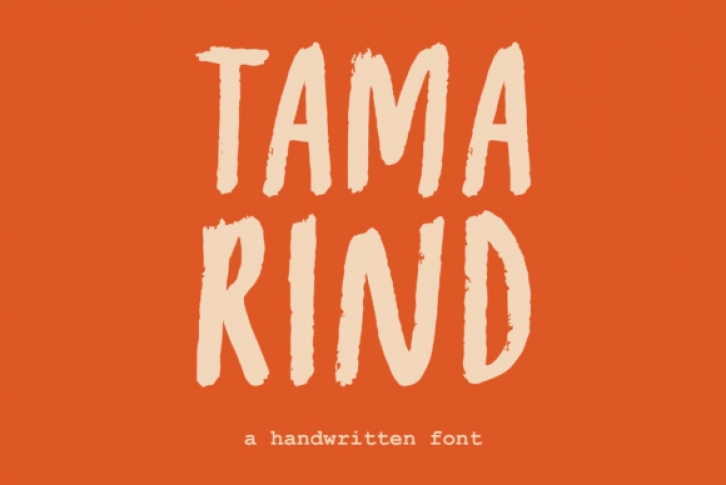
Tamarind is a rough handwritten font. It is perfect for branding projects, invitation design, packaging, kids related projects and works perfect with other fonts.